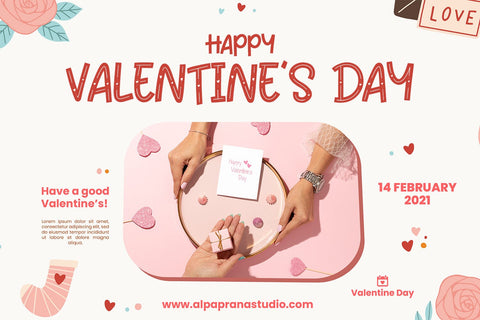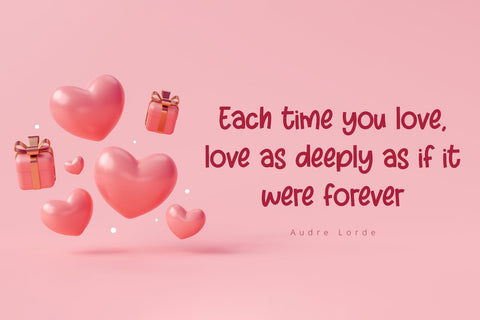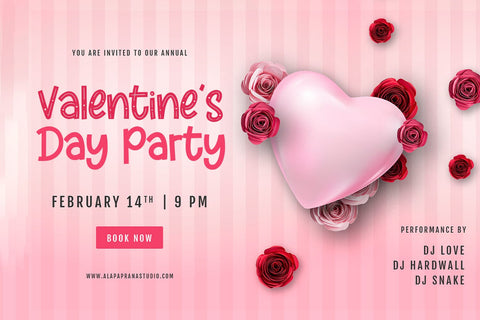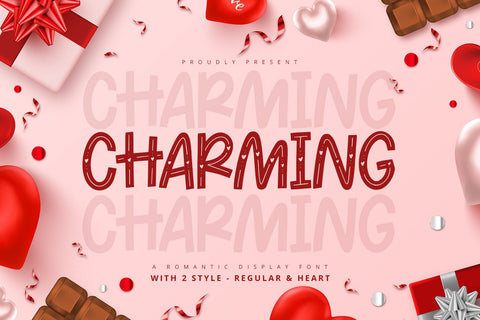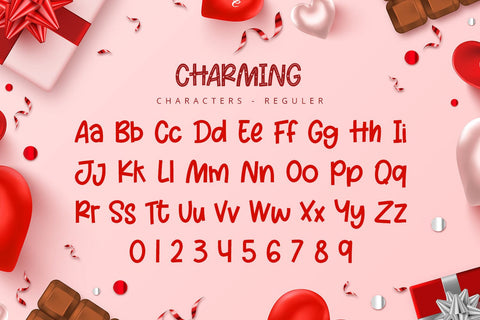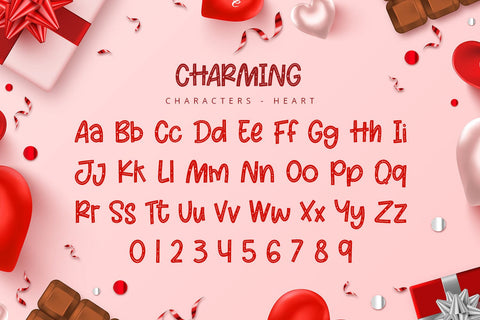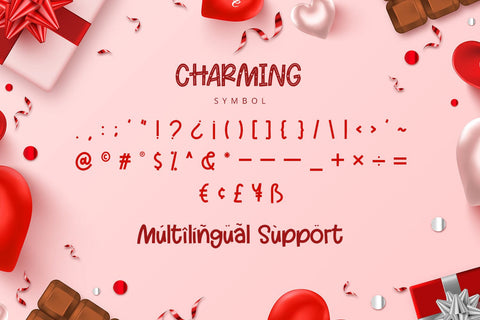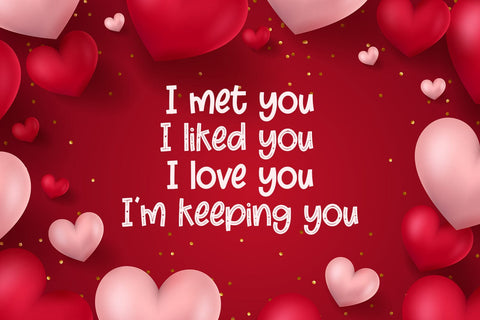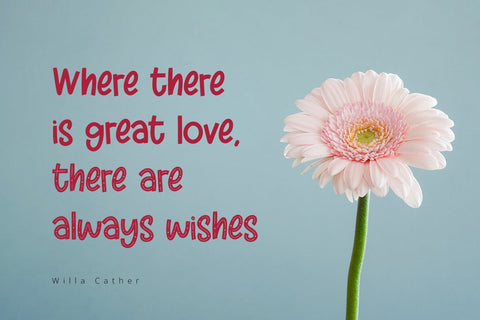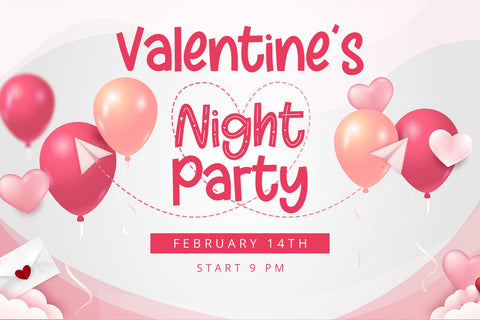
Charming - Romantic Display Font
Charming is a romantic display font with romantic and casual feels. It will be perfectly used for Branding, Logo Design, Lettering, Logotype, Clothing, Poster, magazine, packaging, posters, shopping bags, t-shirts, book covers, photography, special events and other design project.